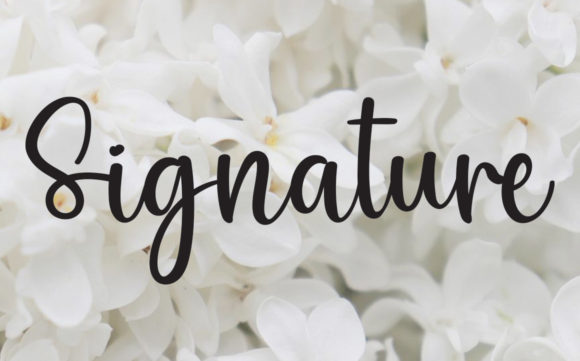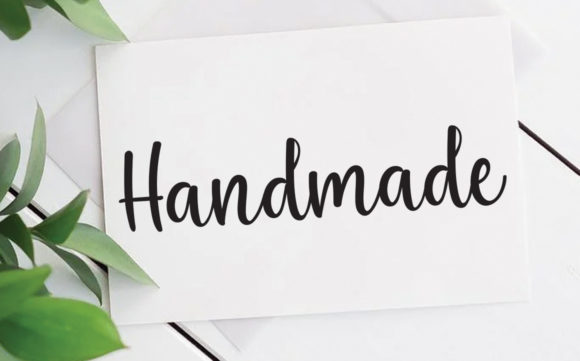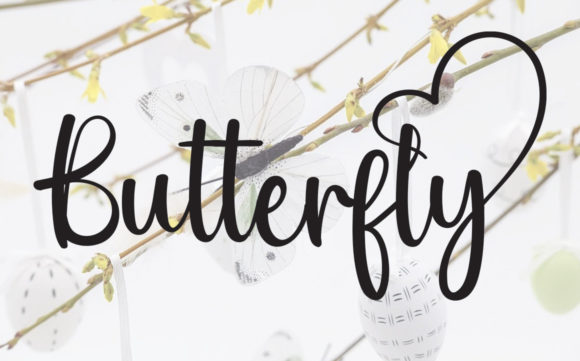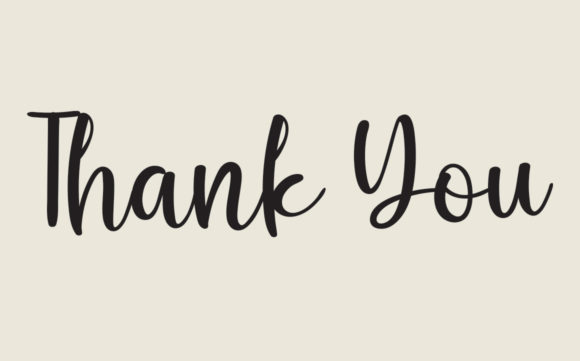
Honey Font
About Honey Font
Honey is a beautiful and flowing handwritten font designed to bring elegance and charm to a wide range of design projects. Whether you’re creating wall displays, wedding invitations, social media post logos, advertisements, product packaging, product designs, labels, photography watermarks, invitations, stationery, or any project that demands impressive typography, Honey is a versatile choice that adds a touch of sophistication to your work.
The font’s beauty lies in its flowing and handcrafted style, which brings a sense of warmth and personal touch to your designs. The intricate strokes and graceful curves of Honey make it an ideal selection for projects that require both style and personality.
Honey effortlessly adapts to various design contexts, making it suitable for a multitude of applications. Whether you’re designing for social media, crafting elegant invitations, or creating a distinctive watermark for your photography, Honey provides an elegant and visually appealing solution.
Its compatibility with wall displays, advertisements, and product packaging showcases Honey’s versatility, making it a valuable asset for creating a cohesive and sophisticated brand identity.
Choose Honey when you want to infuse your projects with a beautiful and flowing handwritten aesthetic. Let this font be the key to creating designs that are not only impressive but also exude a timeless sense of beauty and refined charm.